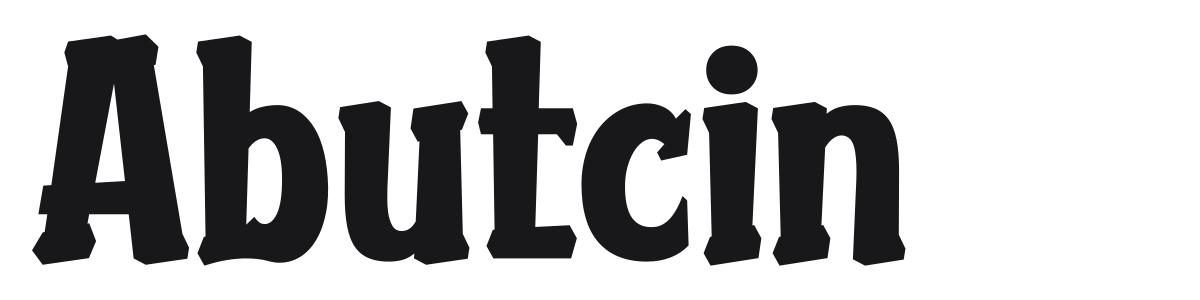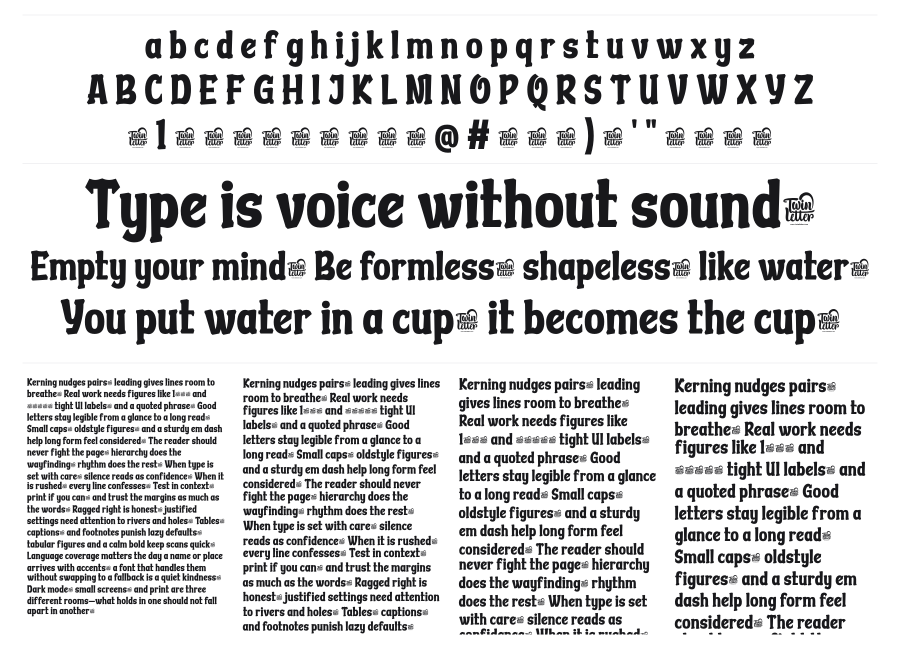
Abutcin
Abutcin is a heavy retro serif with the bold swagger of a 1970s movie poster, built on thick stems, sharp stroke contrast, and slightly irregular organic curves. The bracketed serifs and robust weight give it a hand-lettered warmth that sets it apart from clean digital revivals. It works at large sizes where its personality has room to breathe.